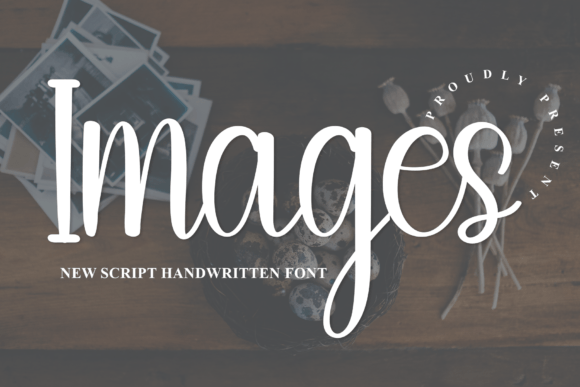
Delve into the world of Images Font, a captivating script font family meticulously crafted to elevate your designs with a touch of elegance and charm. Inspired by the timeless art of calligraphy, Images Font embodies the perfect balance between thin and thick strokes, creating a captivating visual rhythm that dances across your digital canvas. Experience the seamless harmony of variations within this font, ensuring a diverse range of applications that cater to your every creative whim.
Unleash your imagination and transform your projects with Images Font, the perfect font for small businesses seeking to establish a unique and memorable brand identity. Whether crafting logos, designing marketing materials, or creating eye-catching social media visuals, Images Font empowers you to make a lasting impression. Its modern vibe and spotless form effortlessly blend with various design aesthetics, allowing you to convey your brand's message with style and sophistication.
Elevate your digital presence with Images Font, a font designed to make your words shine. Its clean lines and elegant curves command attention, drawing readers into your content and captivating their imaginations. Ideal for creating stunning headlines, captivating website copy, and impactful marketing messages, Images Font ensures your words leave an indelible mark on your audience's minds.
With Images Font, the possibilities are endless. Let your creativity soar as you explore the boundless applications of this versatile font. From personal projects to professional endeavors, Images Font seamlessly adapts to suit your unique vision. Experience the joy of seamless creativity as you effortlessly craft designs that exude both professionalism and personality.